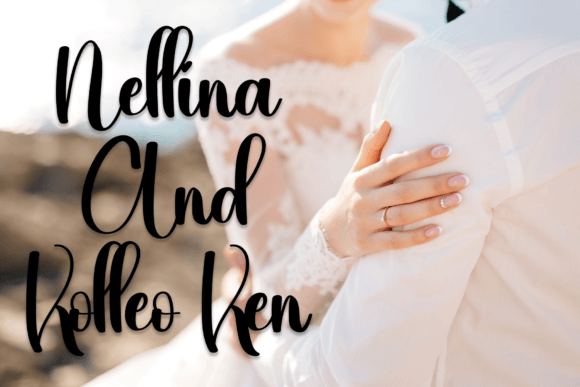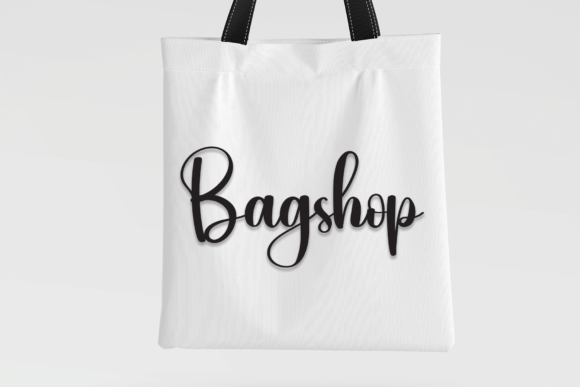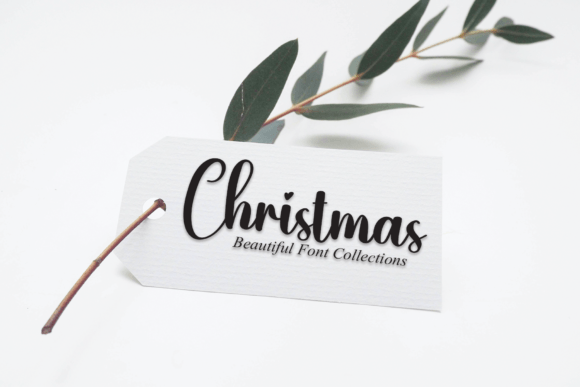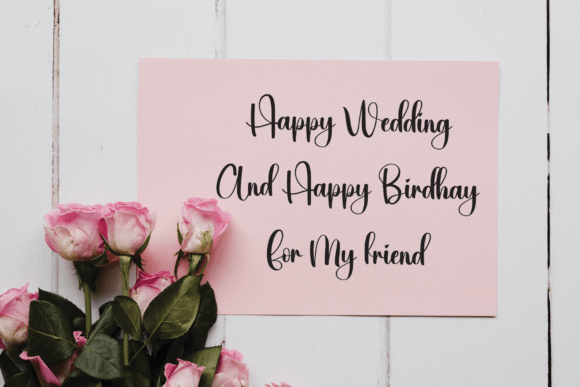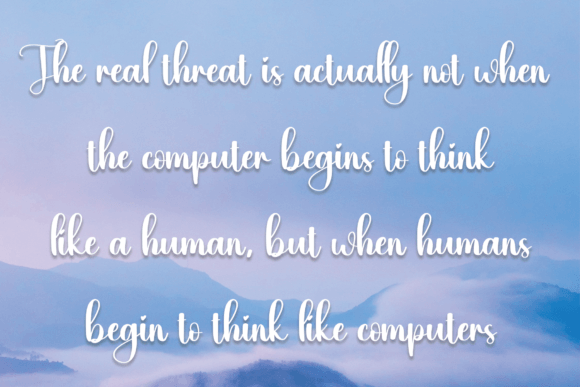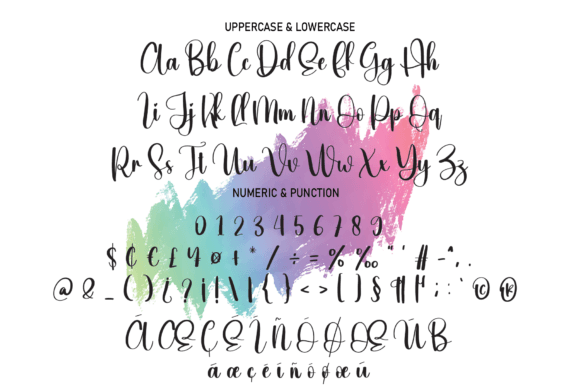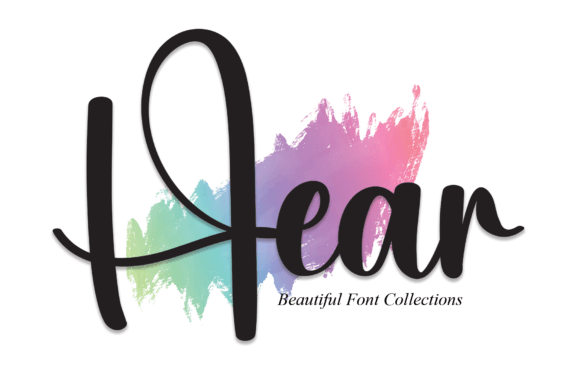
Hear Font: Elevate Your Designs with a Modern Handwritten Style
In the world of typography, fonts play a crucial role in conveying the tone and personality of a design. For designers and crafters looking for a modern and elegant touch, Hear Font is an excellent choice. This beautiful handwritten font is perfect for a wide range of projects, from wall displays and wedding invitations to social media posts, logos, advertisements, and more.
What is Hear Font?
Hear Font is a contemporary handwritten font designed to add a personal and artistic touch to your designs. Its unique and stylish letters are carefully crafted to provide a modern and sophisticated look. With its elegant strokes and flowing curves, Hear Font is ideal for designs that require a touch of personality and whimsy.
Key Features of Hear Font
- Modern Handwritten Style: Hear Font boasts a modern handwritten style that is perfect for designs that require a personal touch.
- Latest Style Letters: The font features the latest style letters that are designed to provide a fresh and contemporary look.
- Versatile: Hear Font is suitable for a wide range of projects, including wall displays, wedding invitations, social media posts, logos, advertisements, product packaging, and more.
- Elegant and Sophisticated: The font’s elegant strokes and flowing curves provide a sophisticated look that is perfect for designs that require a touch of luxury.
Uses of Hear Font
Hear Font is a versatile font that can be used for a variety of projects, including:
- Wall Displays: Add a personal touch to your wall displays with Hear Font’s elegant and modern style.
- Wedding Invitations: Make your wedding invitations stand out with Hear Font’s beautiful and sophisticated letters.
- Social Media Posts: Elevate your social media posts with Hear Font’s modern and stylish typography.
- Logos: Create stunning logos with Hear Font’s unique and artistic letters.
- Advertisements: Grab attention with Hear Font’s bold and elegant style.
- Product Packaging: Add a touch of luxury to your product packaging with Hear Font’s sophisticated look.
- Product Designs: Create beautiful product designs with Hear Font’s modern and artistic typography.
- Labels: Make your labels stand out with Hear Font’s elegant and stylish letters.
- Photography: Add a personal touch to your photography with Hear Font’s beautiful watermarks.
- Invitations: Create stunning invitations with Hear Font’s sophisticated and elegant style.
- Stationery: Elevate your stationery with Hear Font’s modern and artistic typography.
Why Choose Hear Font?
With so many fonts available, why choose Hear Font? Here are a few reasons:
- Unique and Artistic: Hear Font’s unique and artistic letters will set your designs apart from the rest.
- Modern and Sophisticated: The font’s modern and sophisticated style makes it perfect for designs that require a touch of luxury.
- Versatile: Hear Font is suitable for a wide range of projects, making it a great addition to your font collection.
- Elegant and Stylish: The font’s elegant and stylish letters will add a personal touch to your designs.
In conclusion, Hear Font is a beautiful and versatile handwritten font that is perfect for designers and crafters looking for a modern and elegant touch. With its unique and artistic letters, Hear Font is suitable for a wide range of projects, from wall displays and wedding invitations to social media posts, logos, and more. Its elegant and sophisticated style makes it a great choice for designs that require a touch of luxury. So why not give Hear Font a try and elevate your designs to the next level?